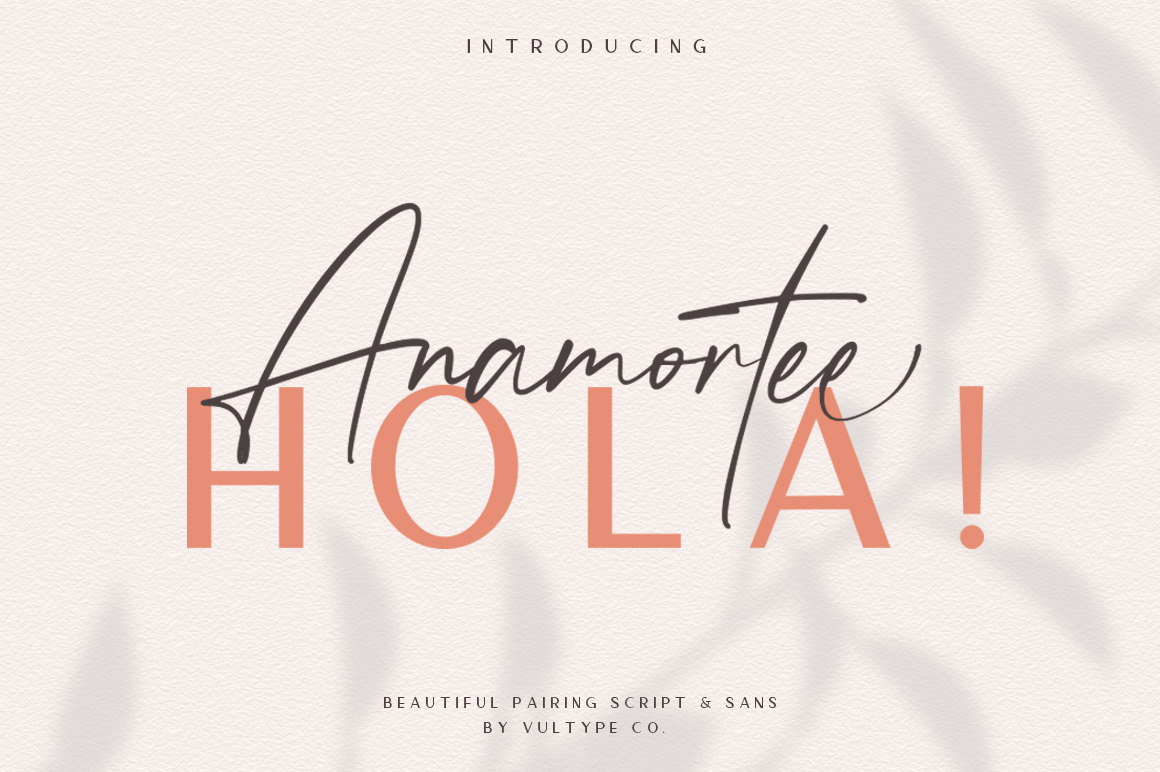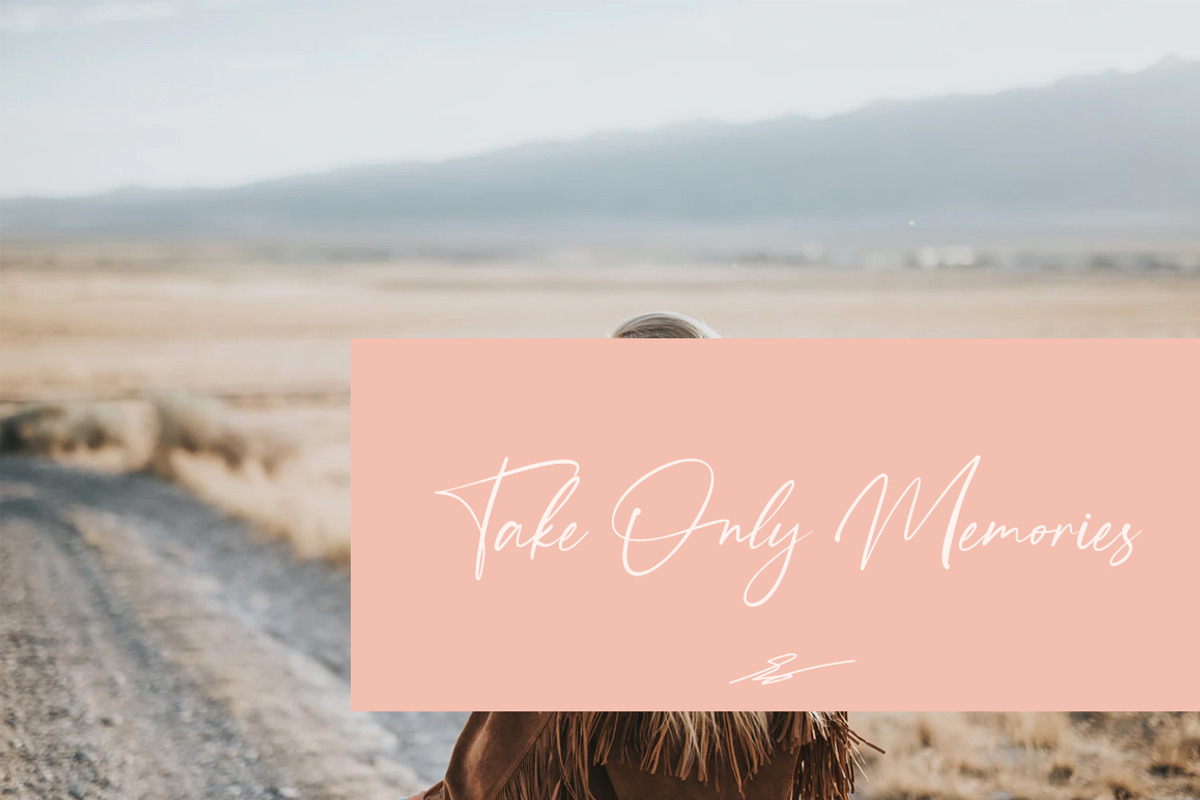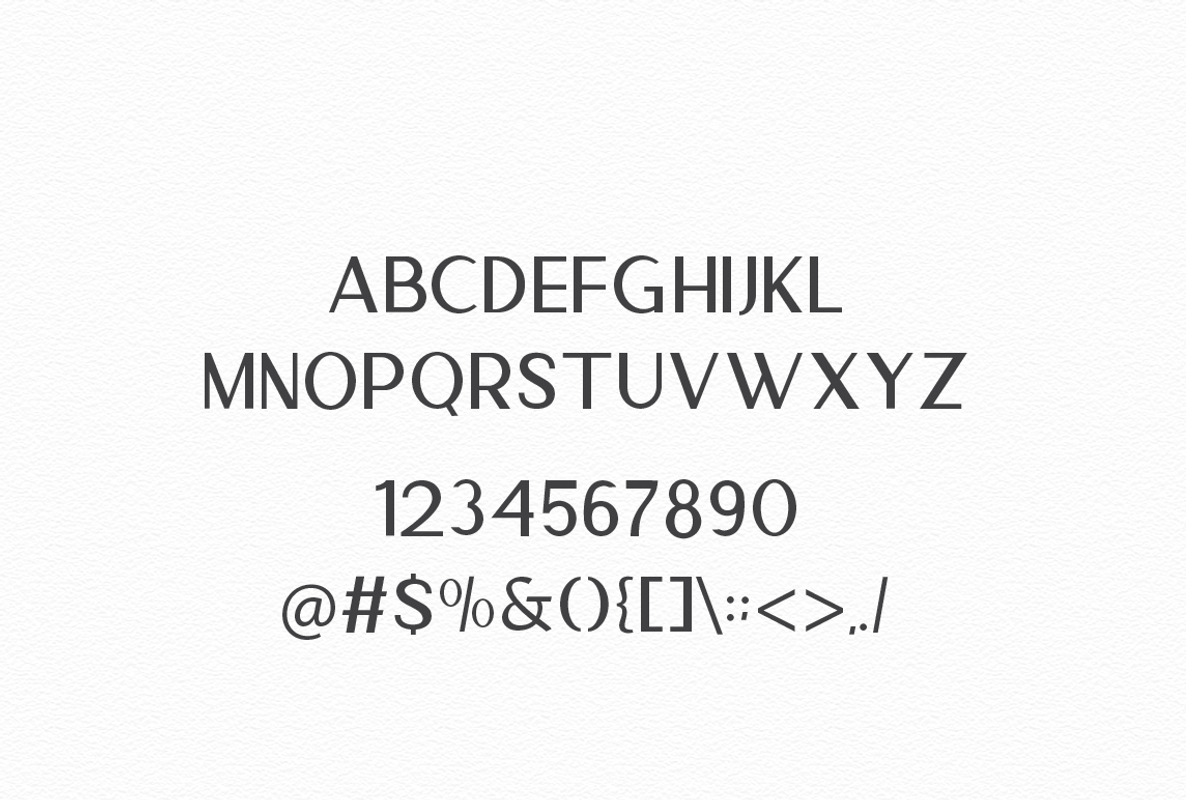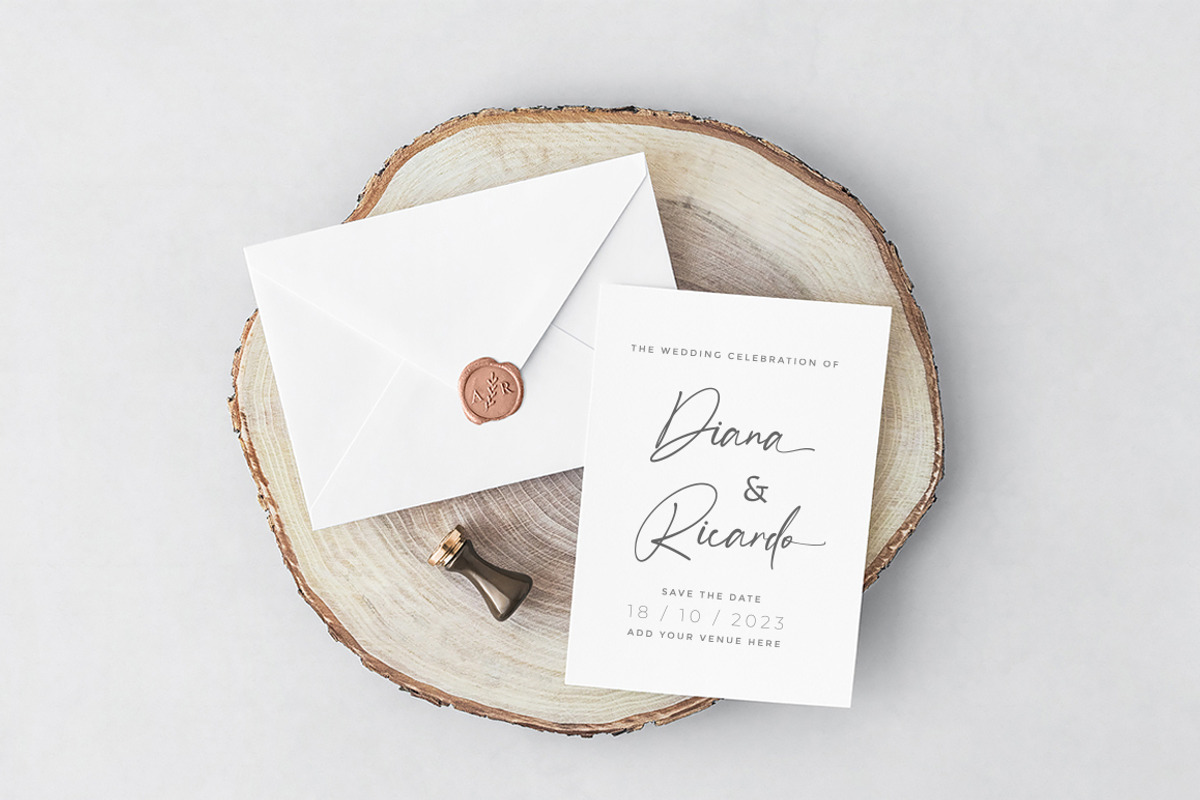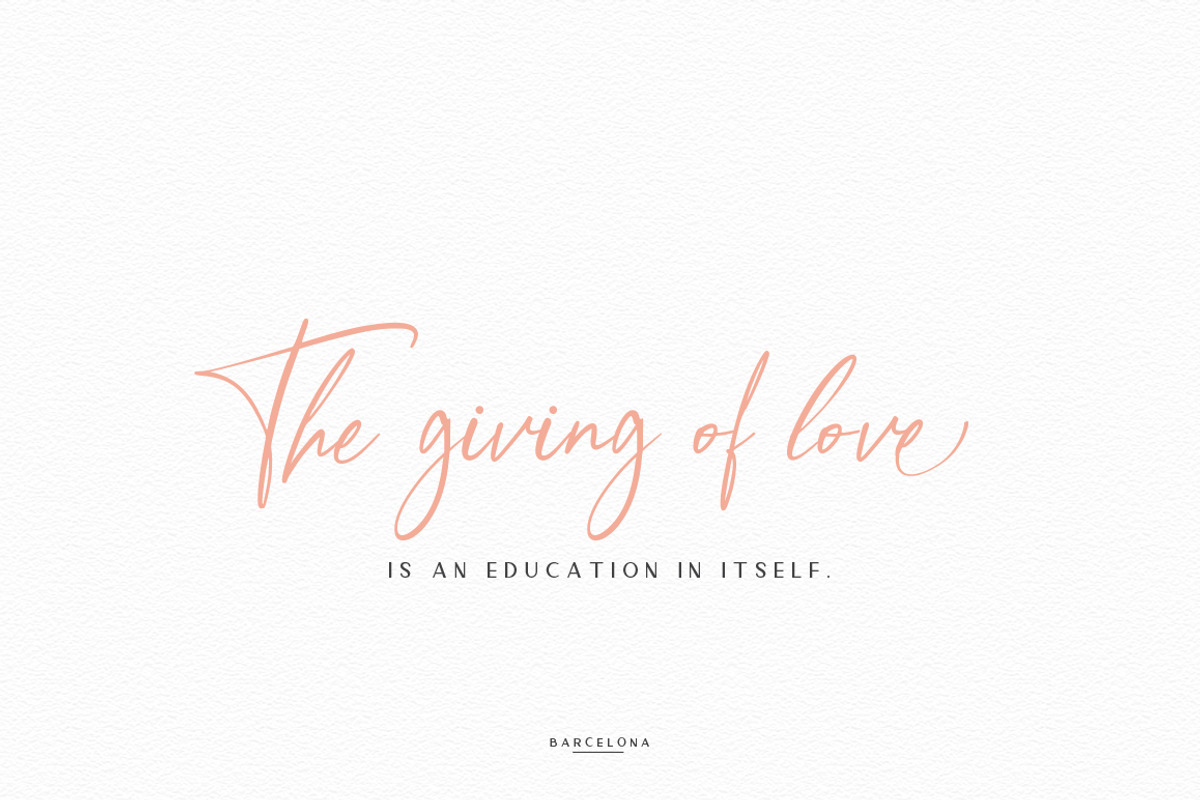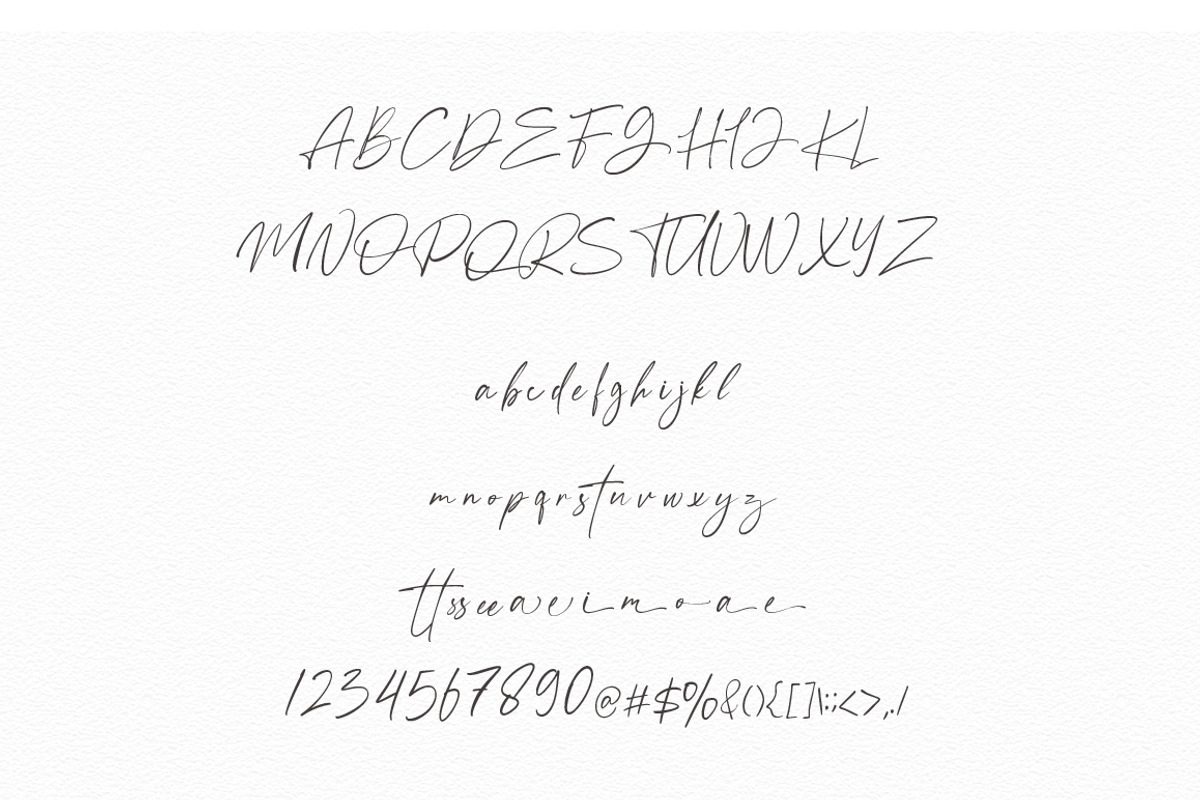
Anamortee // Modern Calligraphy Font
Anamortee is lovely script and sans with beautiful ligature and alternate font.
It easily cooperating together For Magazine, Movies, or Book Titles. For Photography, Wedding Invitation, Restaurant Menu or T-shirt Design. For Flyers, Banner Ads, web and printing. From Food and Fashion to a Cosmetics product
- Upper + Lowercase Letters
- Numbers + Punctuation
- Ligature Feature
- OpenType features
I’m always on the lookout for script faces that have a non-cursive “r”—the American cursive r is not used in all countries, so it can be difficult to read in some cases.
I think the script font is fantastic in style, but I really would love to have (and I really need) to have full set of punctuation marks, the apostrophe and question mark are missing! Those two are pretty important characters. Please consider an update to add the missing pieces - thank you!
+ A beautiful visual duo. I use the Script font for my branding because it is easy to read for a script font but still has character. - A really big drawback are the missing punctuation marks (full stop, question mark, exclamation mark, hyphen, dash) and characters like inverted commas. I find the € symbol a bit borderline in terms of recognisability. Would it be possible to add that?